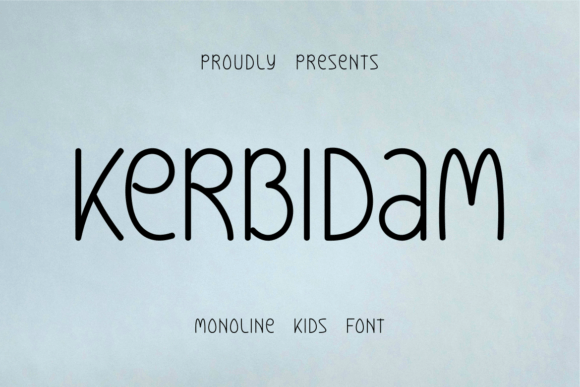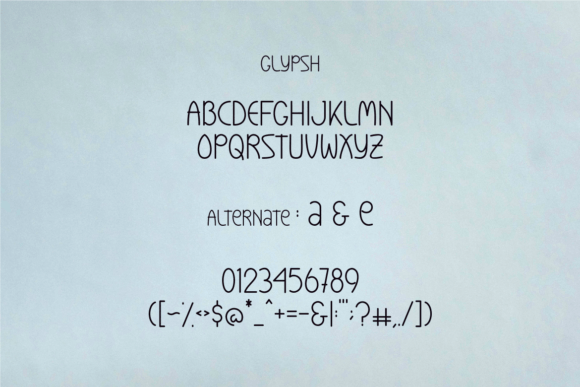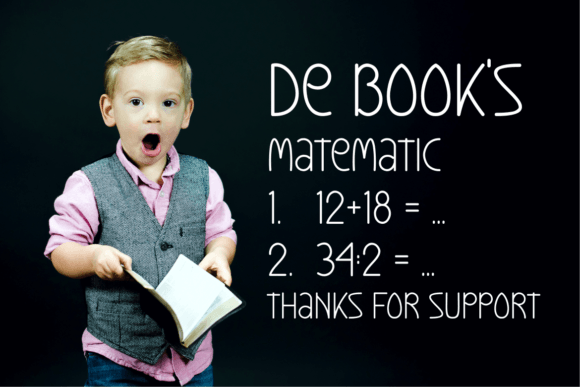
“Kerbidam” is a charming and friendly handwritten font that radiates cuteness and playfulness. With its endearing style, this font is an excellent choice for projects related to children’s activities or school endeavors.
The cute and friendly nature of “Kerbidam” makes it perfect for creating a warm and inviting atmosphere in designs targeted at children. Whether you’re working on educational materials, children’s books, or school-related projects, this font adds a delightful touch that resonates with a younger audience.
The handwritten quality of “Kerbidam” enhances its authenticity, creating a sense of connection and approachability. It’s like the handwriting of a friendly companion, making it suitable for projects where a personal and relatable touch is desired.
Imagine “Kerbidam” gracing the pages of a children’s book, where its playful strokes bring characters and stories to life. Picture it in school project materials, adding a touch of creativity and friendliness to presentations. Envision this font on children’s activity books, making learning and play a delightful experience.
In the realm of design for children, “Kerbidam” becomes more than just a font; it becomes a creative tool to engage and captivate young minds. Its cute and friendly demeanor makes it a valuable asset for designers aiming to create designs that resonate with the innocence and joy of childhood.
Whether you’re a graphic designer working on children’s projects or an educator enhancing learning materials, “Kerbidam” invites you to embrace its cute and friendly handwritten charm. Let it be the key element that adds a touch of whimsy and warmth to your designs, making them truly special for the little ones.